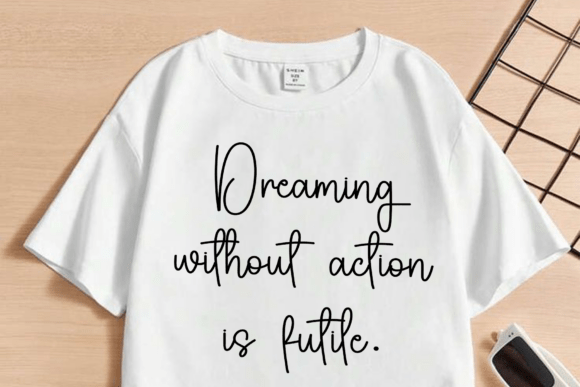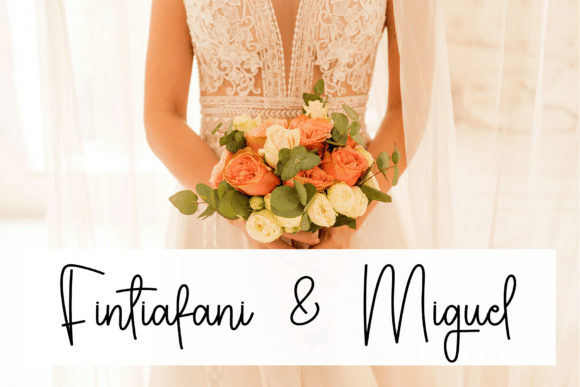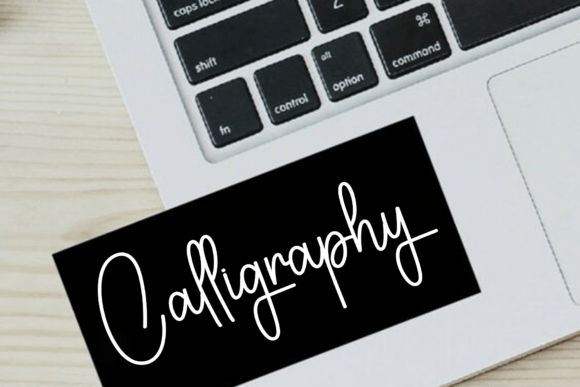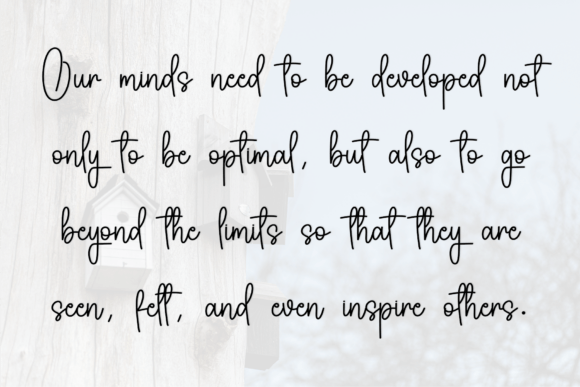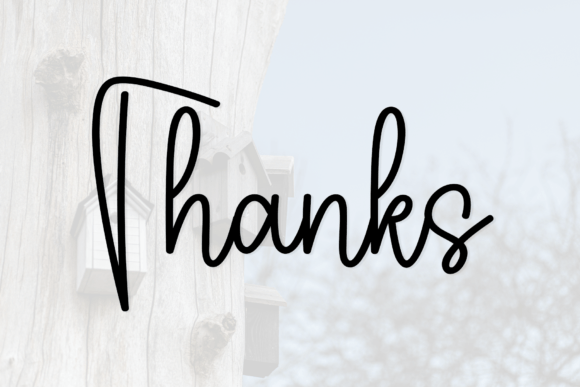
Birdhouse Font: Elevate Your Designs with Elegance and Sophistication
Are you looking for a font that exudes luxury, sophistication, and modernity? Look no further than the Birdhouse Font. This elegant and fluid handwritten script font is perfect for designers and crafters who want to add a touch of high-end style to their projects. In this article, we’ll dive into the features and benefits of Birdhouse Font, and explore how you can use it to elevate your designs.
The Essence of Birdhouse Font
Birdhouse Font is a carefully crafted typeface that captures the essence of modern sophistication. Its elegant and fluid lines make it perfect for luxury wedding stationery, intimate event branding, high-end editorial signatures, and sophisticated lifestyle photography overlays. The font’s unique character and refined aesthetic make it an excellent choice for designers who want to create stunning and memorable designs.
Key Features of Birdhouse Font
- Elegant and Fluid Lines: Birdhouse Font features elegant and fluid lines that give it a sophisticated and modern look.
- Handwritten Script Style: The font’s handwritten script style adds a touch of personality and warmth to your designs.
- Luxury and Sophistication: Birdhouse Font is perfect for luxury wedding stationery, intimate event branding, and high-end editorial signatures.
- Versatile: The font is versatile and can be used for a variety of design projects, from digital to print.
Use Cases for Birdhouse Font
Birdhouse Font is a versatile typeface that can be used for a variety of design projects. Here are some use cases to get you started:
- Luxury Wedding Stationery: Use Birdhouse Font to create stunning wedding invitations, save-the-date cards, and wedding programs.
- Intimate Event Branding: The font is perfect for branding intimate events, such as baby showers, bridal showers, and anniversaries.
- High-End Editorial Signatures: Add a touch of sophistication to your editorial designs with Birdhouse Font.
- Sophisticated Lifestyle Photography Overlays: Use the font to create beautiful overlays for your lifestyle photography.
Why Choose Birdhouse Font?
So, why choose Birdhouse Font for your design projects? Here are a few reasons:
- Unique and Memorable: Birdhouse Font is a unique and memorable typeface that will set your designs apart from the rest.
- Easy to Read: The font is easy to read, making it perfect for body text and headlines.
- Scalable: Birdhouse Font is scalable, making it perfect for use in a variety of design projects, from digital to print.
Tips for Using Birdhouse Font
Here are a few tips for using Birdhouse Font in your design projects:
- Pair it with a Sans-Serif Font: Pair Birdhouse Font with a sans-serif font to create a beautiful contrast.
- Use it for Headlines and Titles: Use Birdhouse Font for headlines and titles to add a touch of sophistication.
In conclusion, Birdhouse Font is a beautiful and elegant typeface that is perfect for designers and crafters who want to add a touch of luxury and sophistication to their designs. With its fluid lines, handwritten script style, and versatile nature, Birdhouse Font is a great choice for a variety of design projects. Whether you’re creating luxury wedding stationery, intimate event branding, or high-end editorial signatures, Birdhouse Font is sure to elevate your designs.